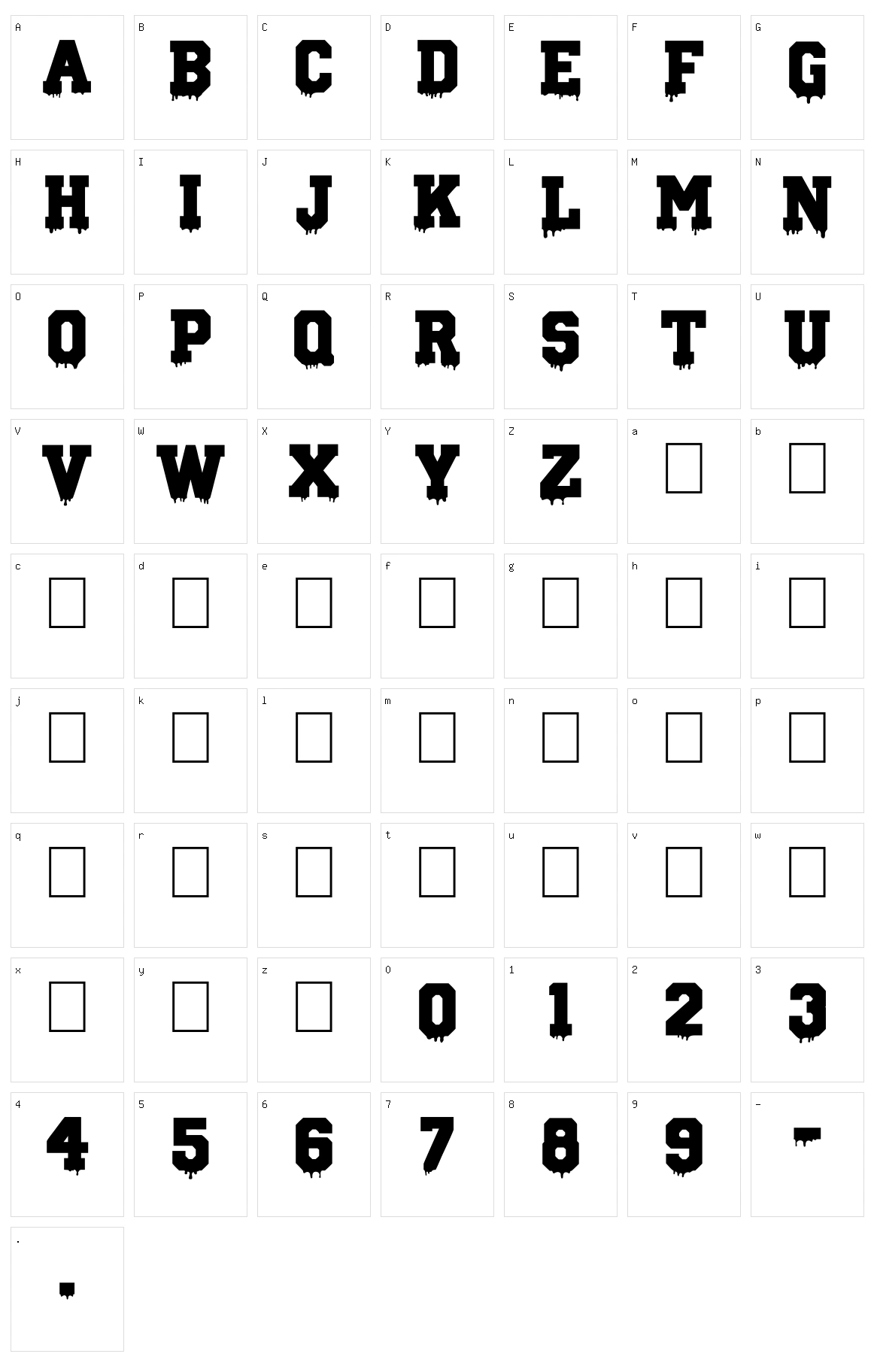
The free font Gun School is carefully designed by imagex, showcasing a thoughtful balance of creativity and usability and falls under the Old School font style. When you download the ZIP file, it contains only 5.87 KB of font files, making it lightweight and quick to download. Please review the license details below to understand permitted usage and distribution rights. If license information is not available, we recommend using this font for personal projects only or contacting the author directly for commercial usage permissions.